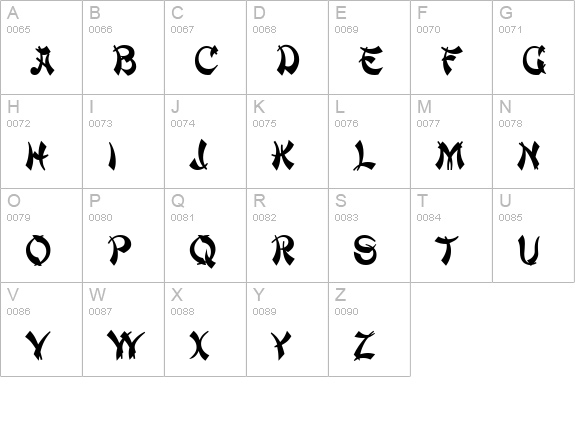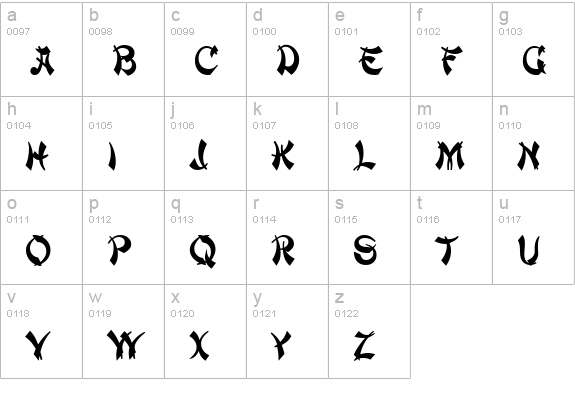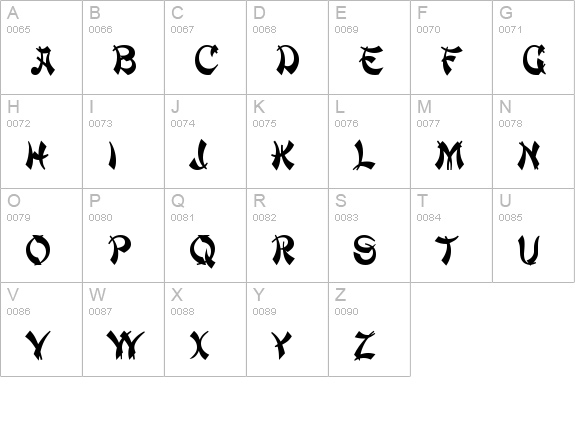
ChowMein Font Details
Introducing ChowMein font, a stylish and versatile typeface perfect for adding a touch of elegance to your designs. This unique font features a blend of modern and classic elements, making it suitable for a wide range of projects. With its sleek lines and sophisticated appearance, ChowMein font adds a touch of sophistication to any design. Best of all, ChowMein font is available for free download at FontsMarket.com. That's right, you can enhance your projects with this stunning font without breaking the bank. Whether you're working on branding, packaging, invitations, or any other creative project, ChowMein font is sure to make a statement. Download it today and elevate your designs with this beautiful and versatile typeface.